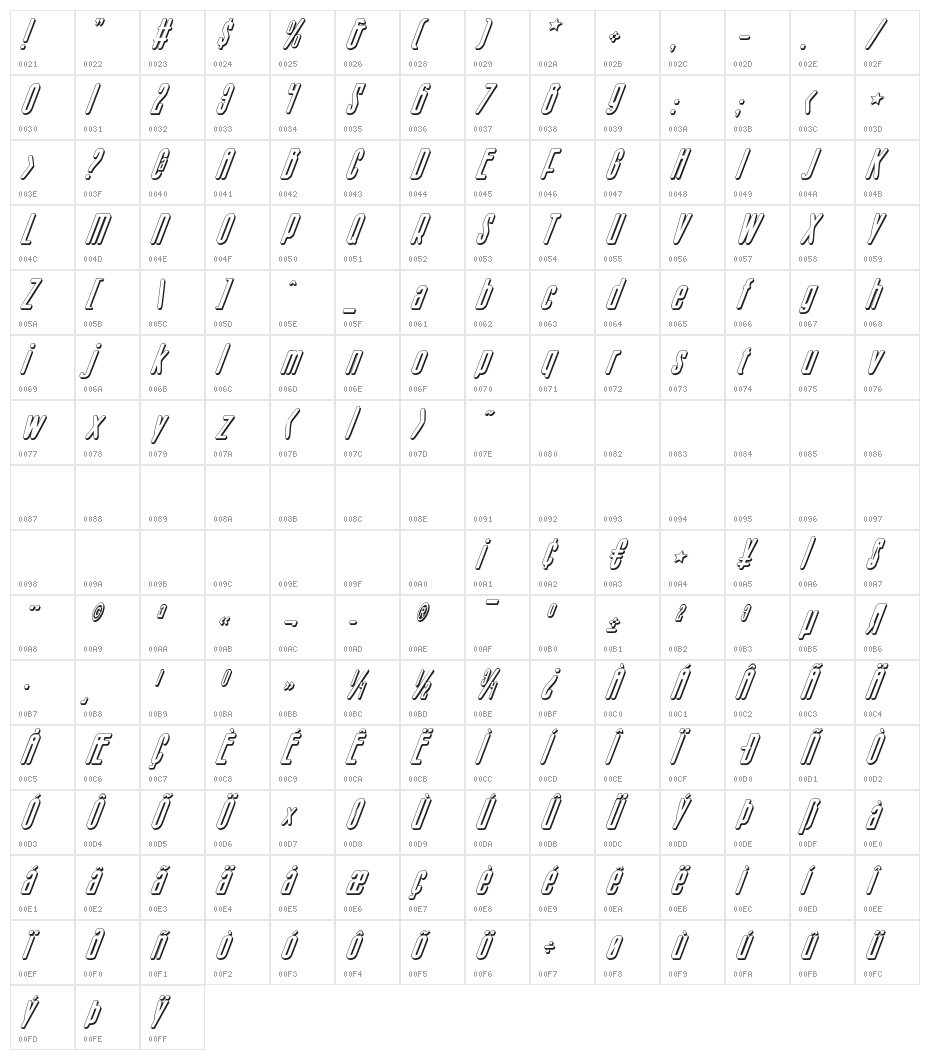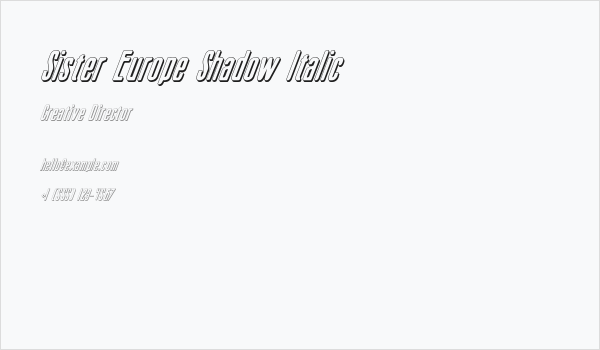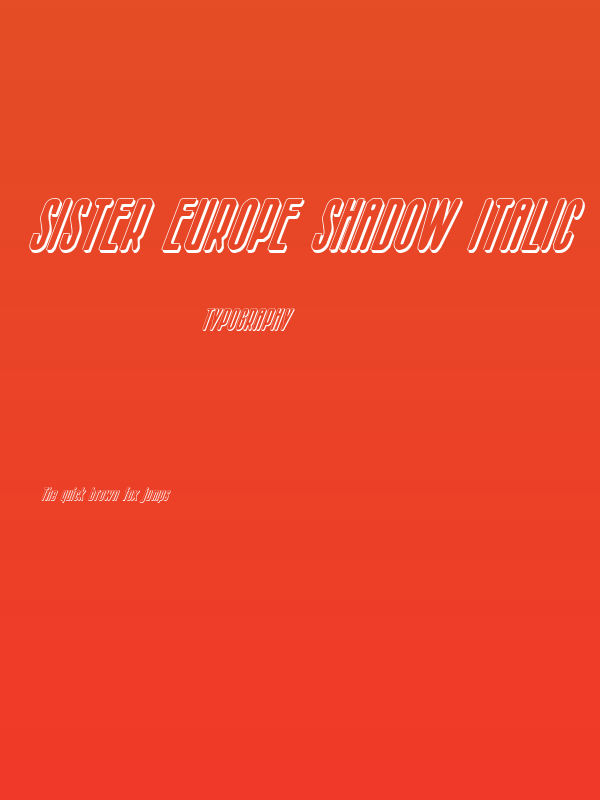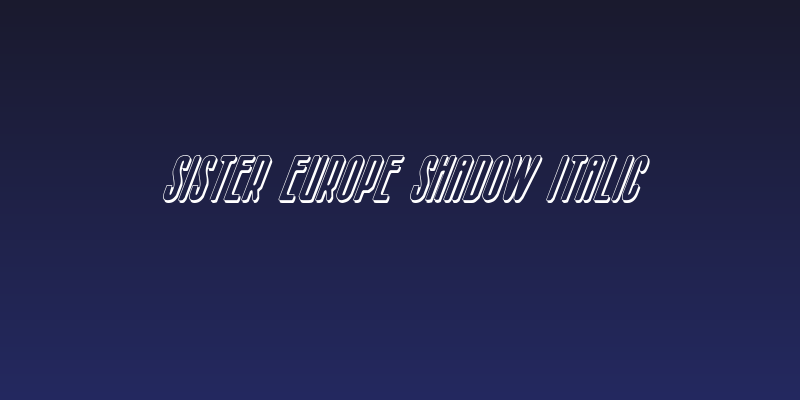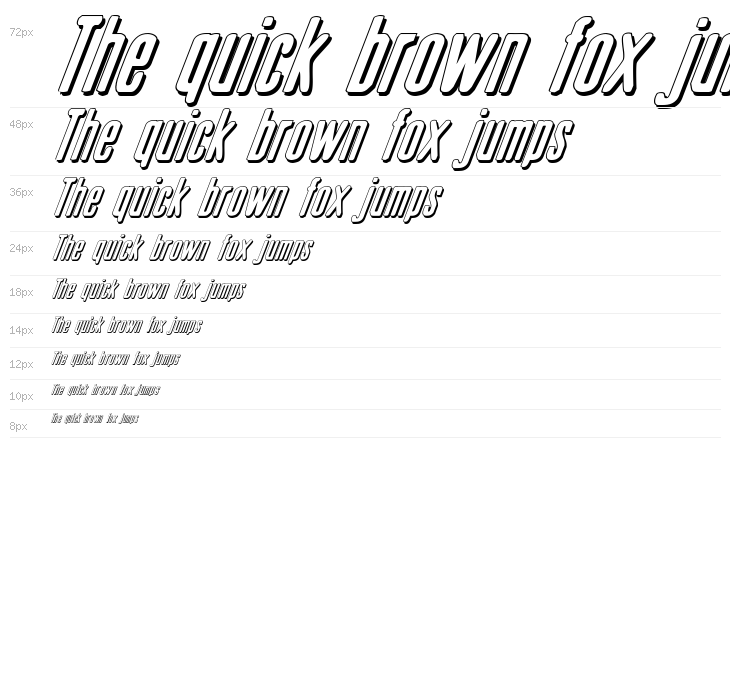
Sister Europe Shadow Italic Font
Sister Europe Shadow Italic Description
This font features a bold and dynamic design with a distinct shadow effect that adds depth and dimension to the characters. The italicized style gives it a sense of motion and energy, making it stand out in any design. The uppercase and lowercase letters are well-proportioned, with a slight slant that enhances the italic effect. The numbers and special characters are consistent with the overall style, maintaining the bold and shadowed appearance. This font is ideal for projects that require a strong visual impact and a modern, edgy look.
| Proposed Projects | Ideal for posters, headlines, branding, and any project needing a bold, impactful look. |